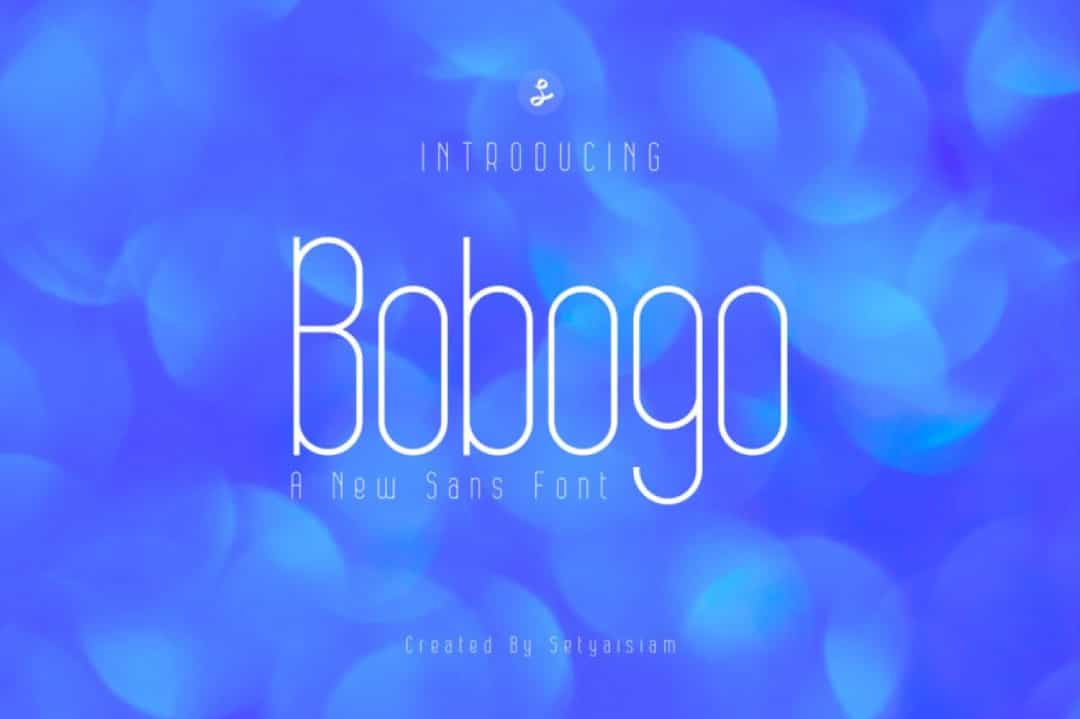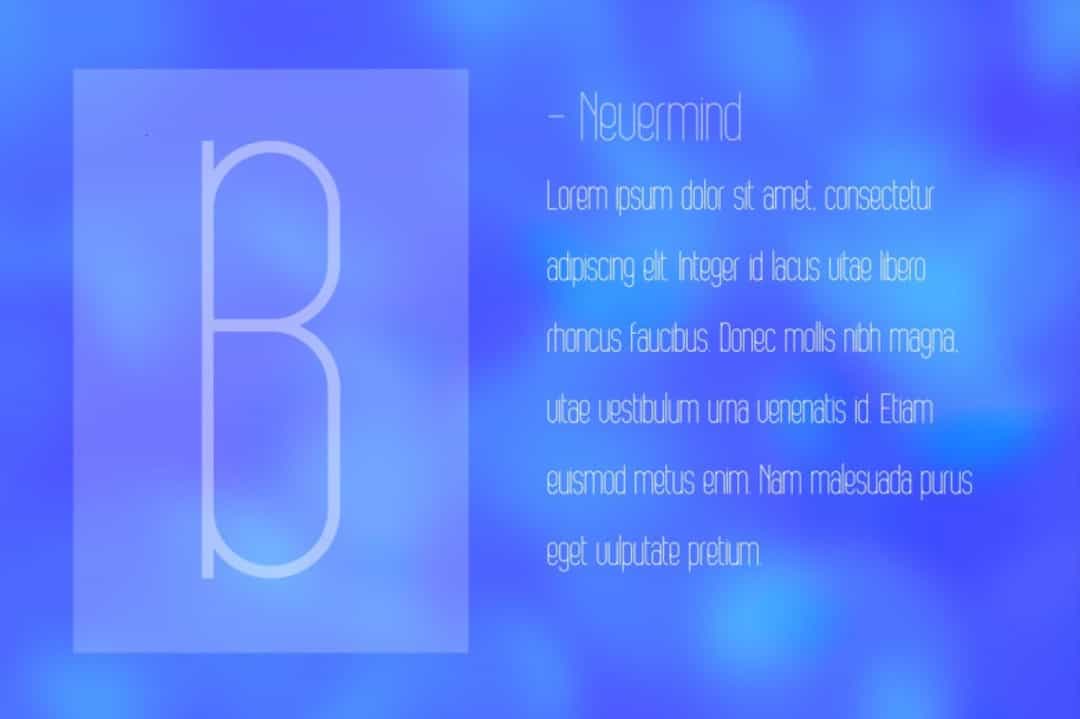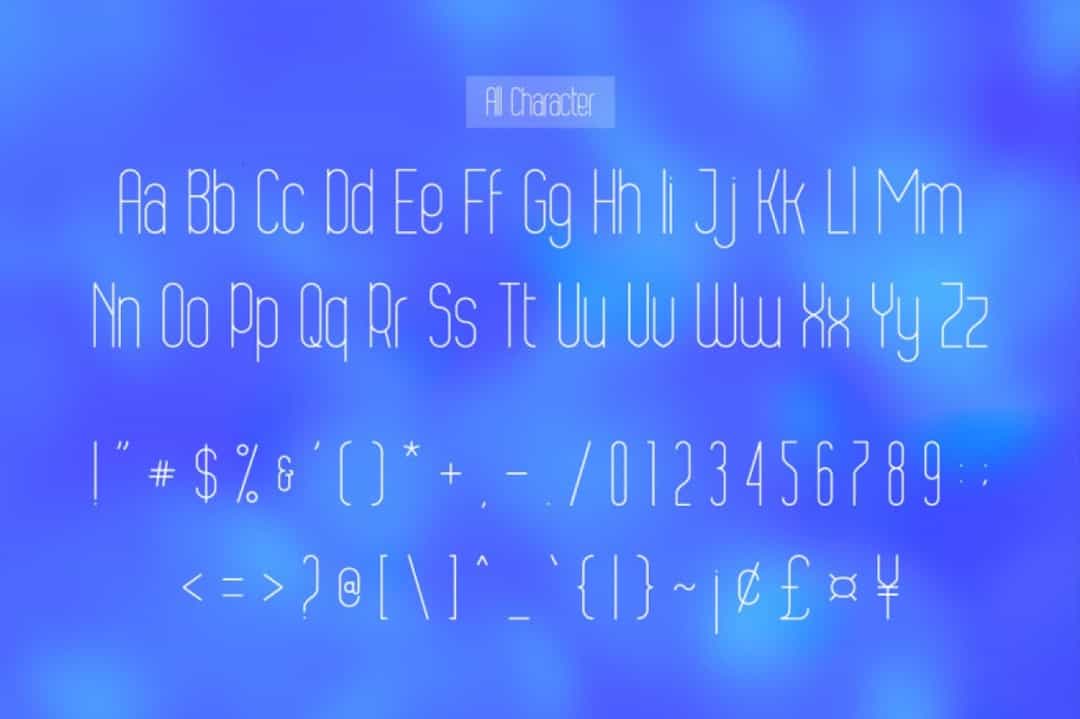
Bobogo is a modern basic sans typeface, which has characters looking like condense but feels more fun and more precise. It is ideal for any use in your design projects such as magazines, books, music logos, logos for films, music covers for films, signage among others, Bobogo has both punctuation marks and numbers in each letter to help you easily locate and select what you need.